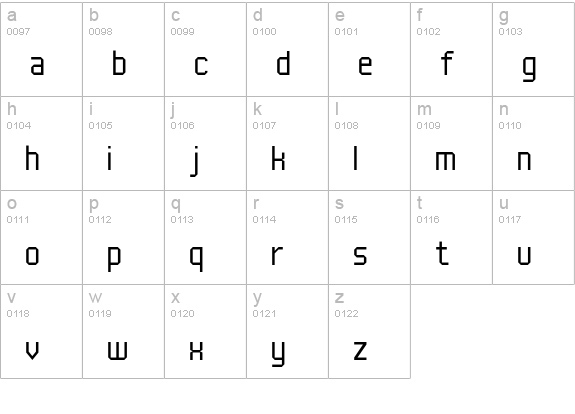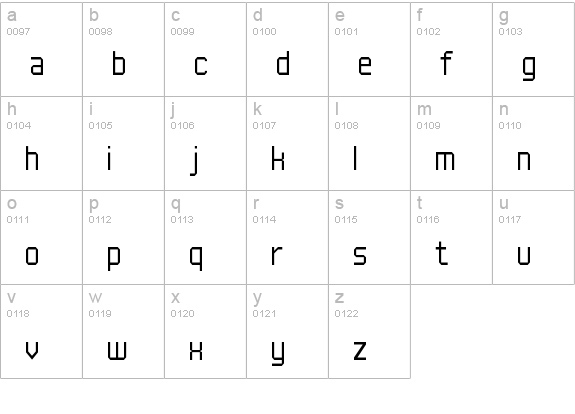
UNDA-AngleFine is a stunning and versatile font that combines elegance with a modern twist. This font is perfect for both professional and creative projects, adding a touch of sophistication to any design. With its unique angles and fine details, UNDA-AngleFine captures attention and stands out from the crowd. The free availability of UNDA-AngleFine font makes it accessible to everyone, allowing designers and enthusiasts alike to utilize its beauty without any cost. This font can be downloaded at FontsMarket.com, a reliable source for high-quality fonts. Whether you're designing a logo, creating a website, or working on a branding project, UNDA-AngleFine is the perfect choice to bring your ideas to life. Its clean lines and refined curves create a harmonious balance that is visually pleasing and easy to read. This font offers a wide range of weights and styles, giving you the flexibility to experiment and find the perfect fit for your project. UNDA-AngleFine is not just a font, it's a statement. Its sleek and contemporary design exudes confidence and professionalism, making it ideal for corporate branding and advertising. However, it also possesses a touch of playfulness, making it suitable for more creative endeavors such as packaging design and social media graphics. With its extensive character set and multilingual support, UNDA-AngleFine ensures that language is no barrier to creativity. It embraces the diversity of global communication, allowing you to express your ideas in any language or script. Experience the power of UNDA-AngleFine font and take your designs to new heights. Download it for free at FontsMarket.com and unlock a world of possibilities. Whether you're a seasoned designer or just starting out, this font will elevate your work and leave a lasting impression.